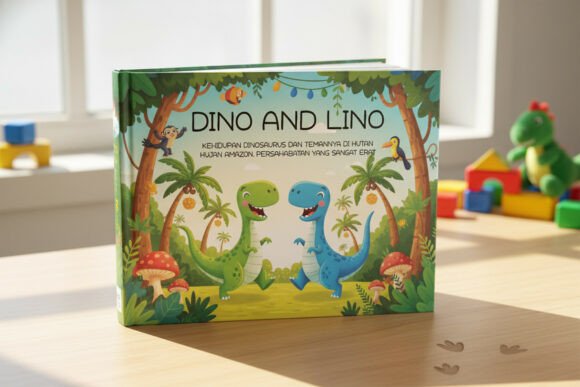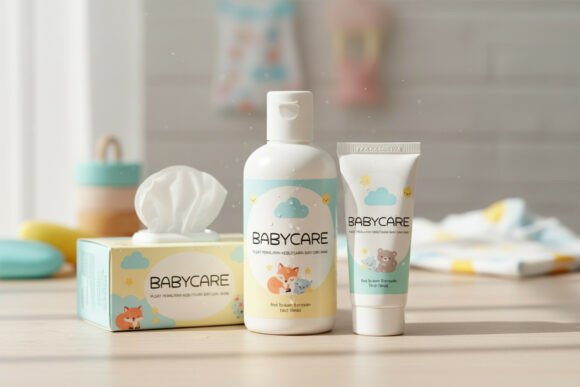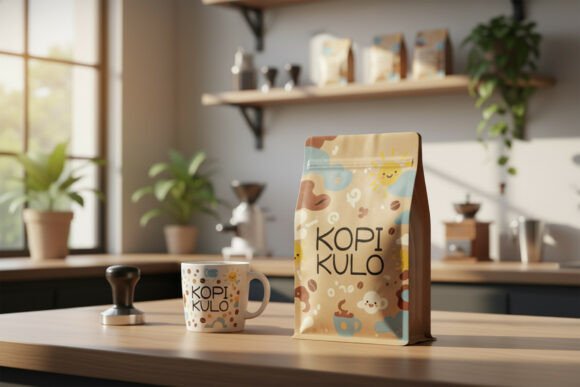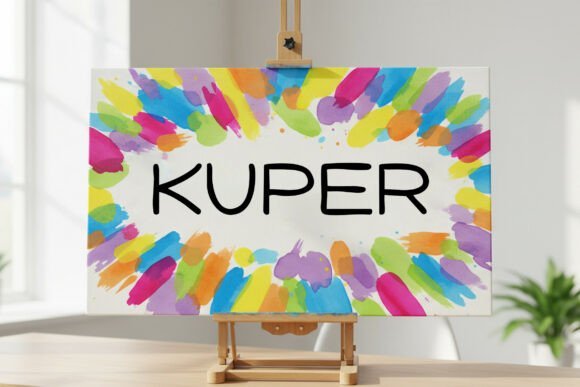
Introduction to Kuper Font
KUPER Playful Handwritten Font brings a cheerful, friendly, and energetic feel to any design.
With its bouncy curves, relaxed strokes, and fun handwritten style, KUPER is perfect for children’s projects, cute branding, product packaging, social media posts, greeting cards, stickers, and creative merchandise The playful character of each letter adds warmth and personality, making your designs stand out with a joyful, approachable vibe.
Kuper Font offers exceptional quality and versatility, making it a valuable addition to your design toolkit. Whether you’re creating for personal projects or commercial use, Kuper Font delivers professional results.